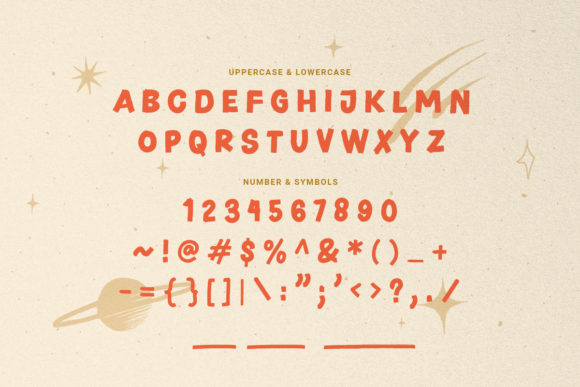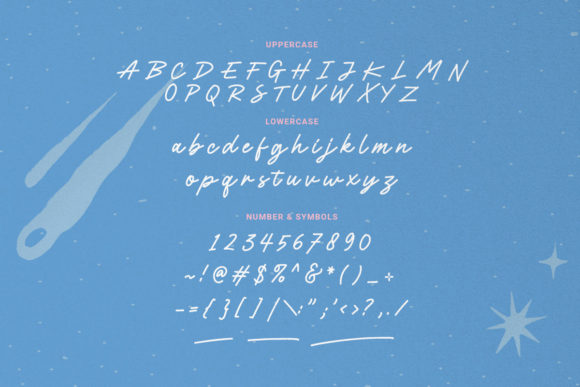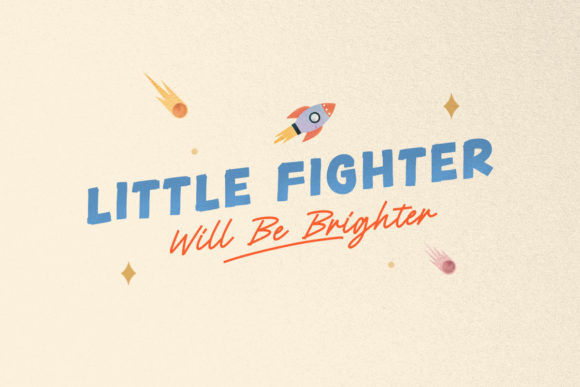
Introduction to Daily Spark Font
Daily Spark is a package of two fonts including Bold Sans and Script that will compliment each other.
You can use this font for any occasion such as branding, merchandise, etc With handmade feels, this font is suitable for quotes.
Daily Spark Font offers exceptional quality and versatility, making it a valuable addition to your design toolkit. Whether you’re creating for personal projects or commercial use, Daily Spark Font delivers professional results.